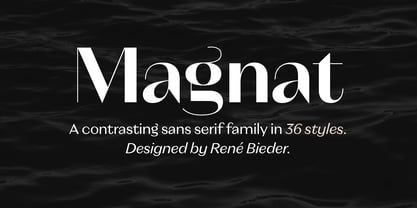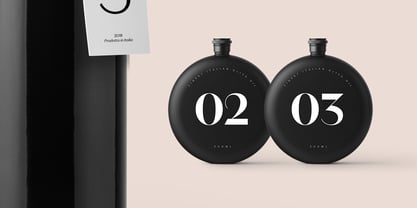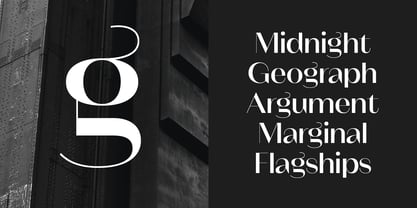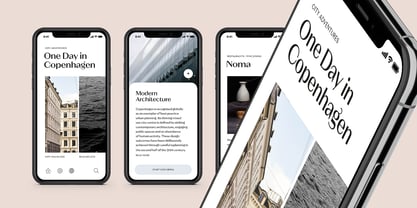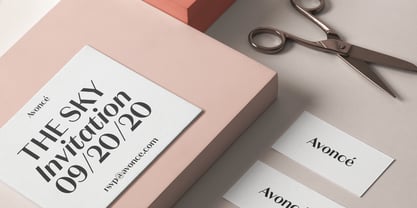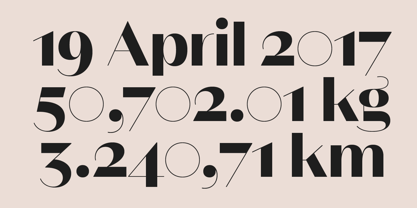
Magnat Font
Magnat Font is perfect for corporate branding, luxury packaging, editorial headlines, professional presentations, and modern website design. Its strong and elegant design makes it ideal for projects that require authority and sophistication.
What makes Magnat Font exciting is its clean lines combined with a contemporary edge. The precise geometry of the letterforms creates a sense of professionalism, while subtle stylistic touches add personality and visual interest.
The Magnat Font family includes Regular, Medium, Bold, Italic, and Display styles, offering designers a versatile toolkit to create cohesive and striking typography across multiple platforms. This variety allows for both bold headlines and refined body text.